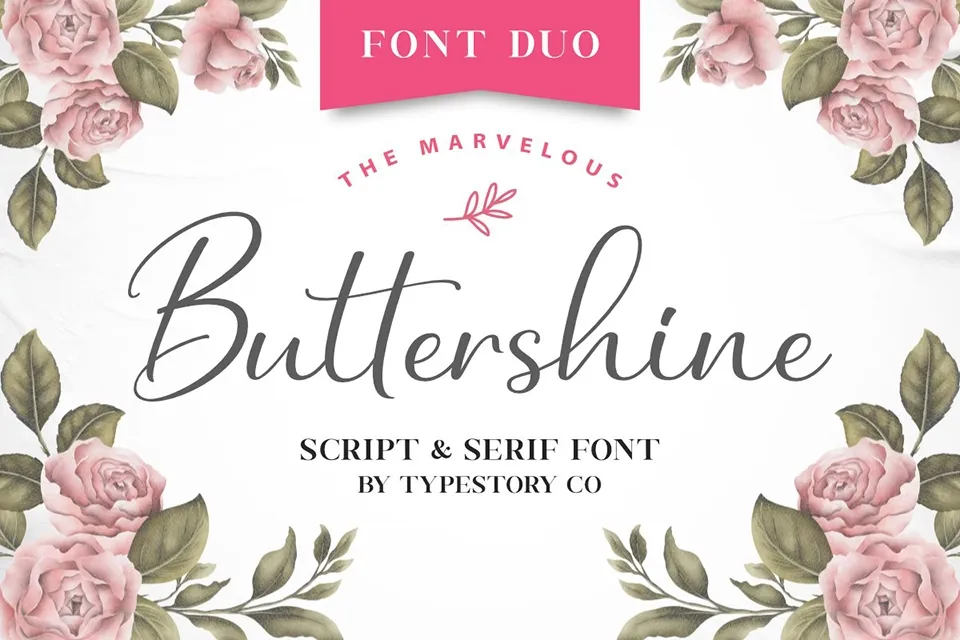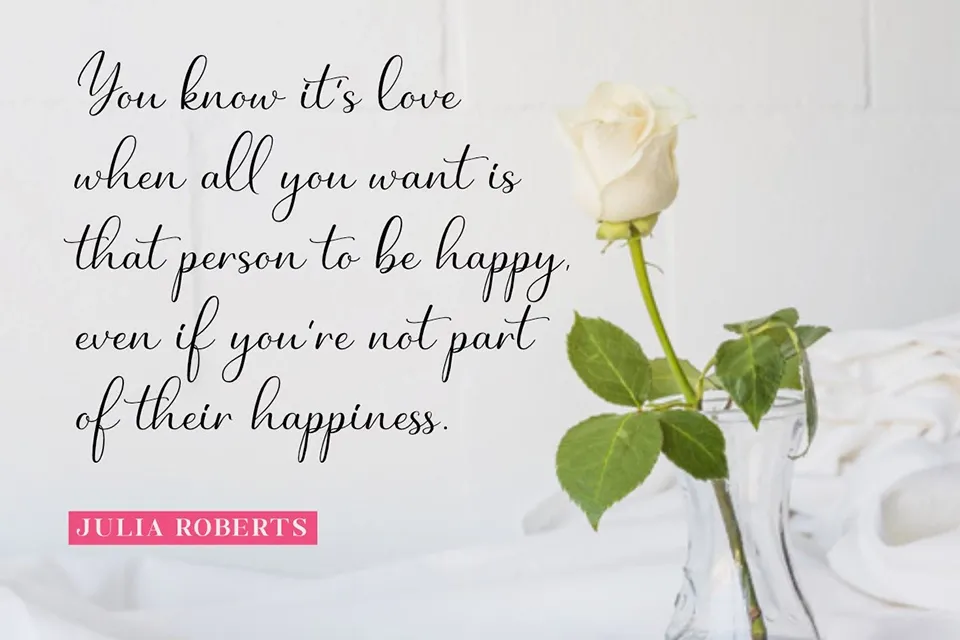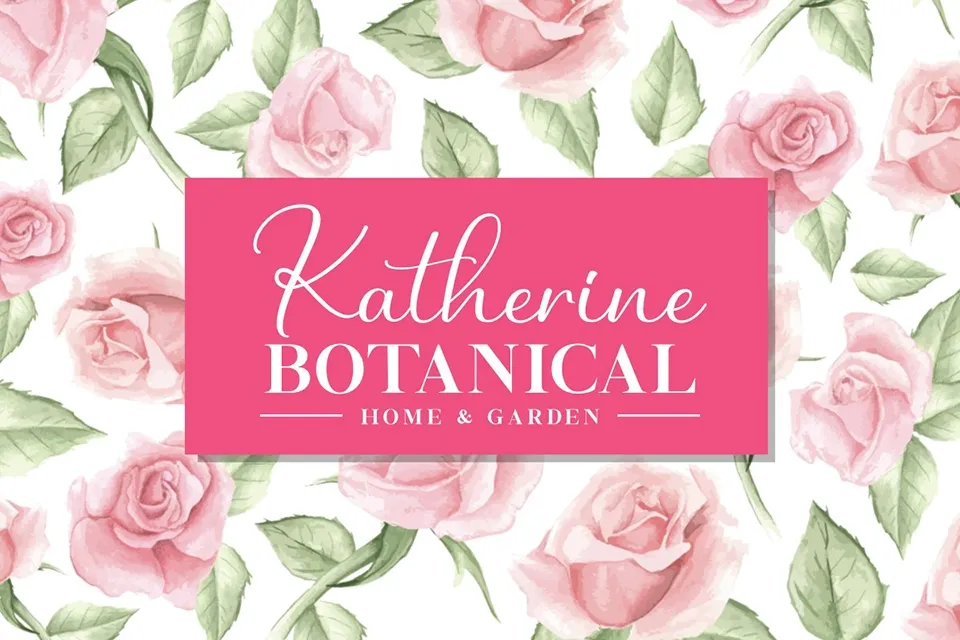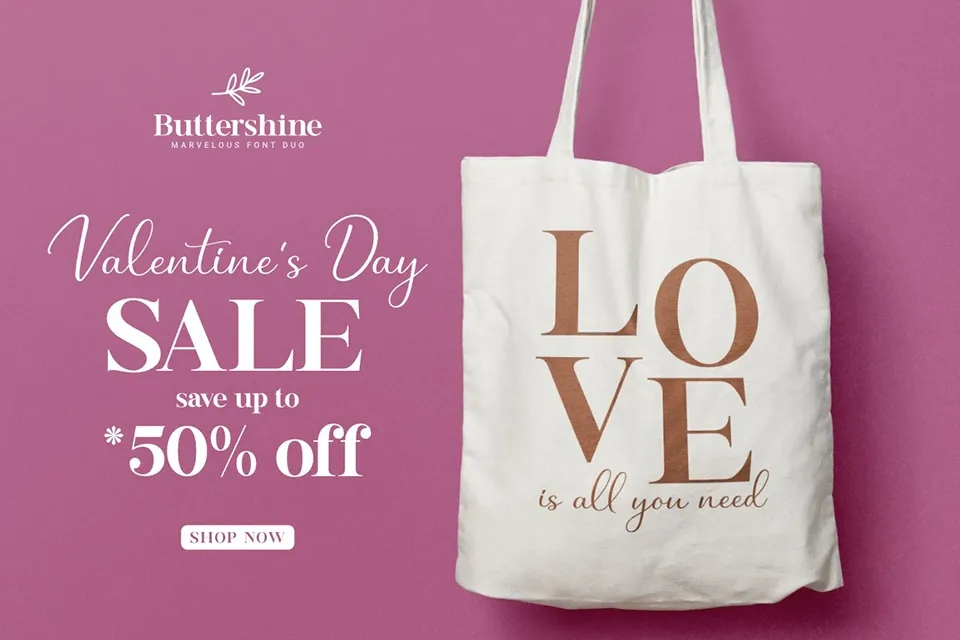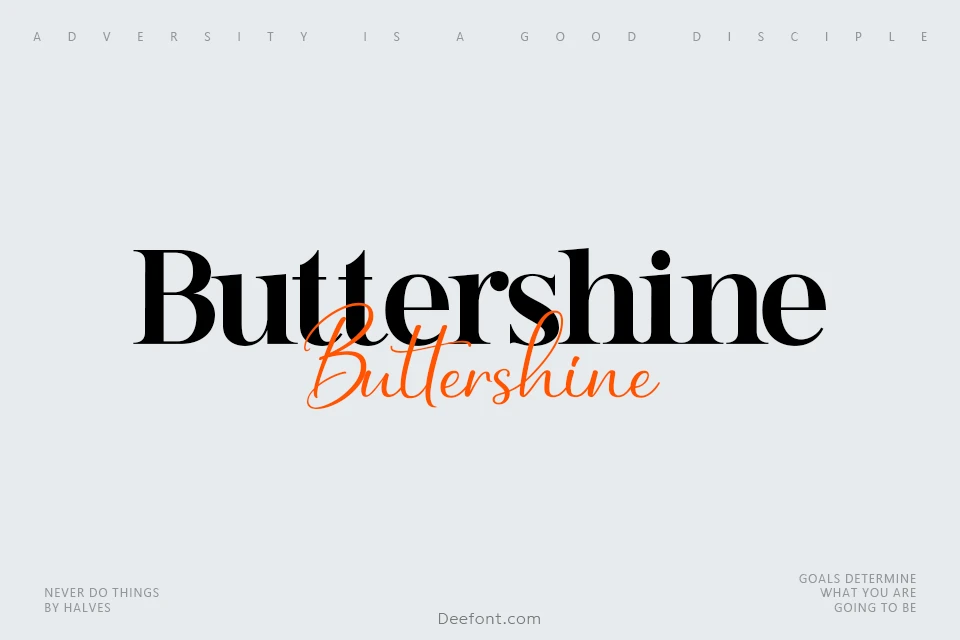
Buttershine Font Duo
The Buttershine Font Duo is a delightful combination of a handwritten script and a classic serif typeface, designed to bring elegance and a personalized touch to your creative work. Perfect for wedding invitations, greeting cards, logos, and branding, this versatile font duo offers both sophistication and warmth to any design that requires a unique, handcrafted feel.